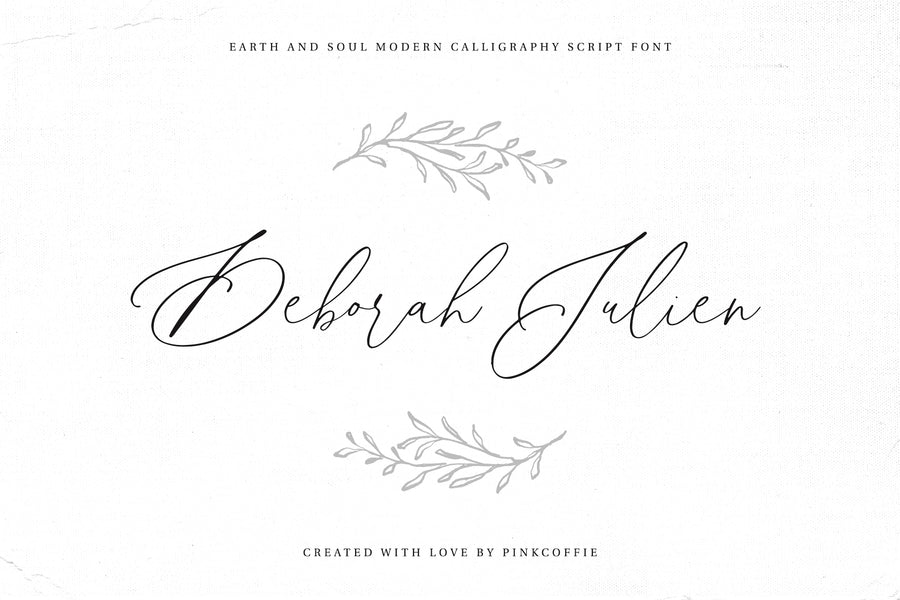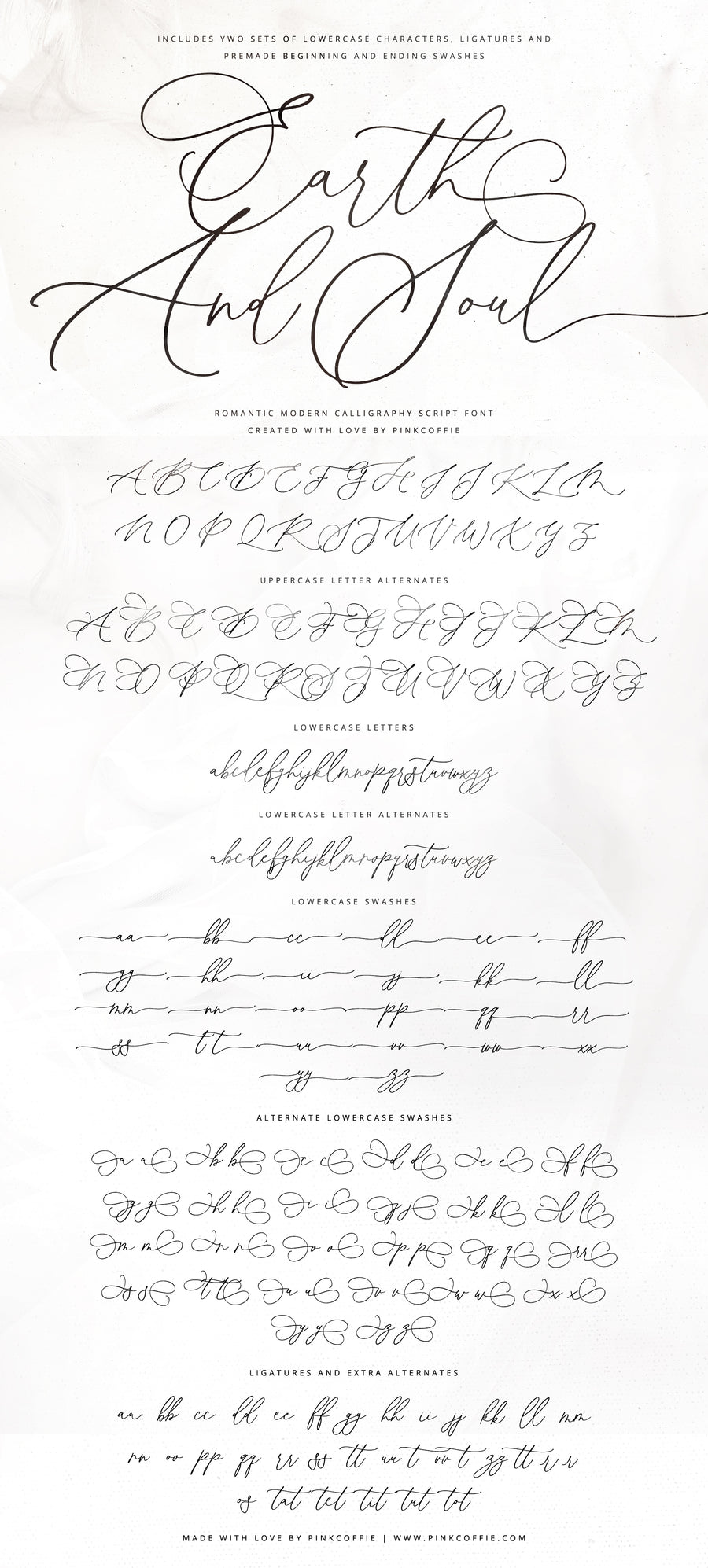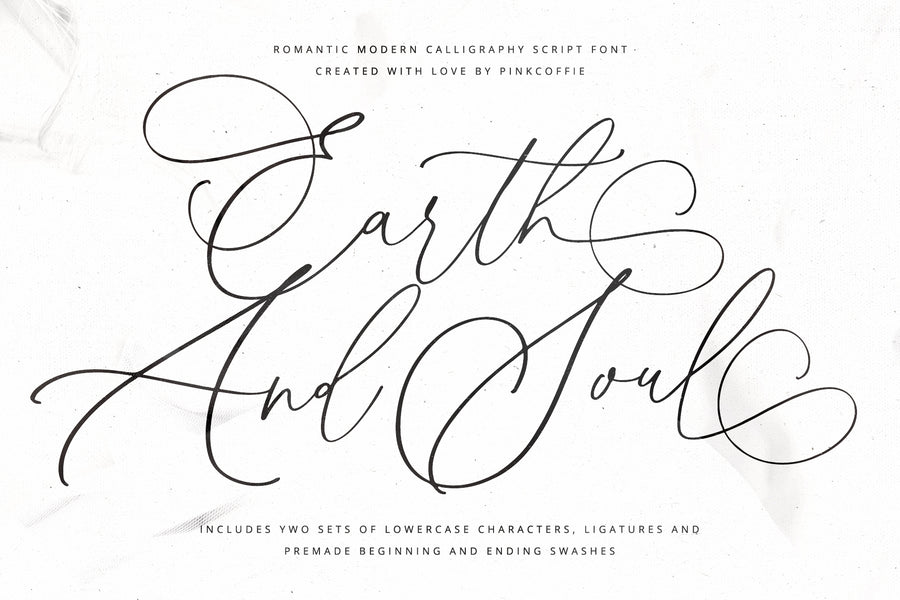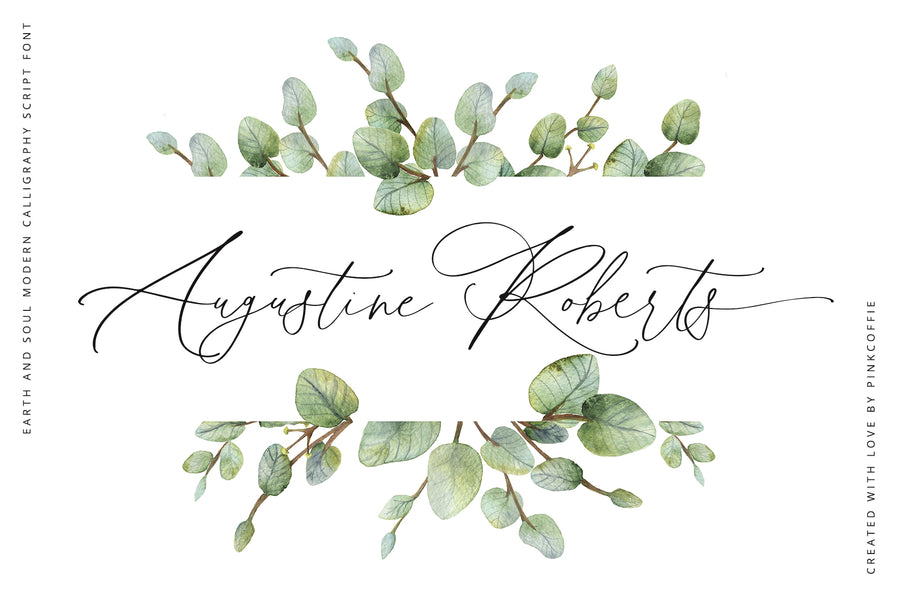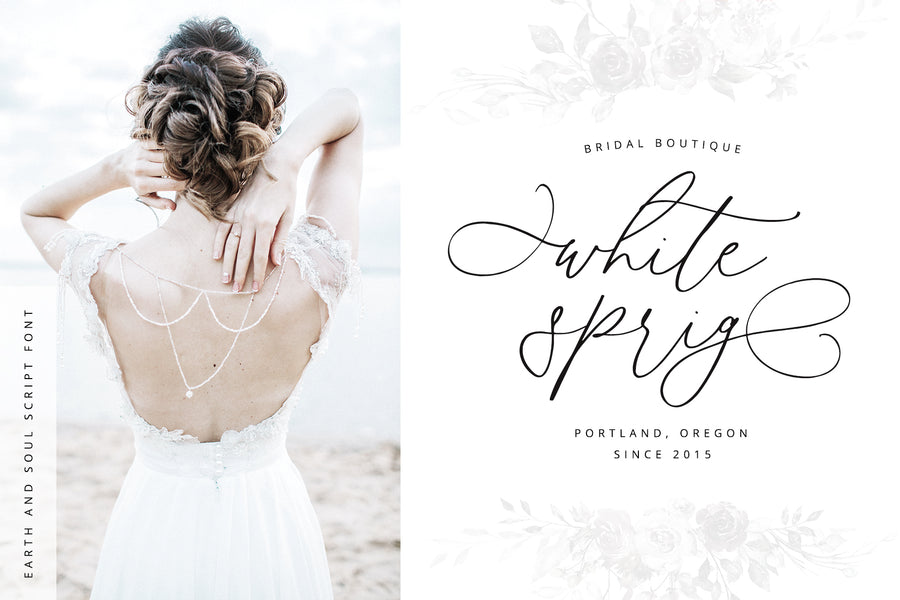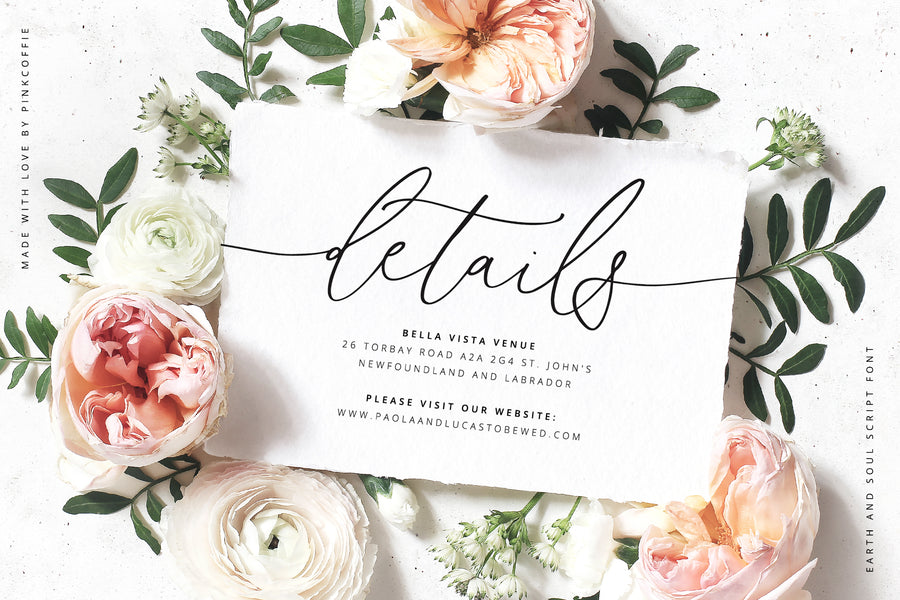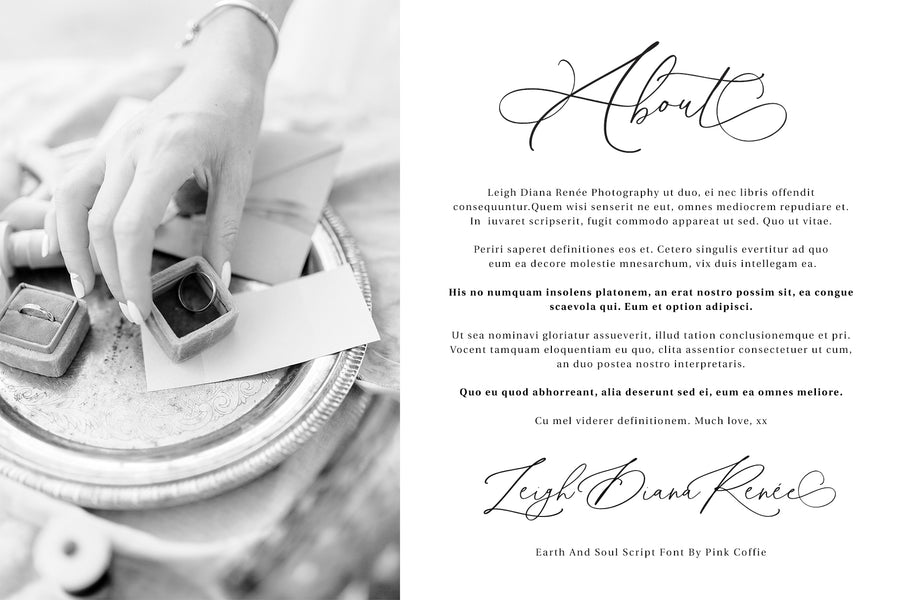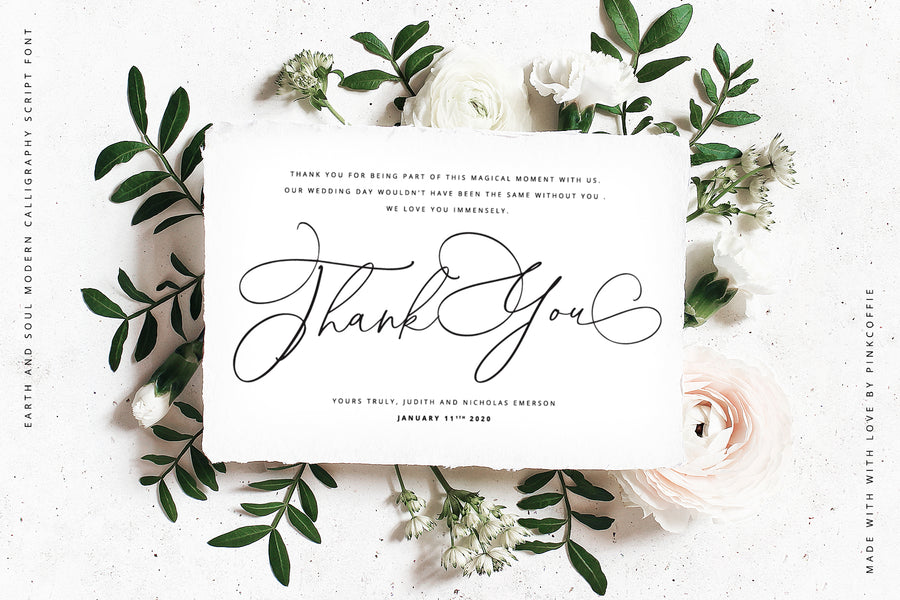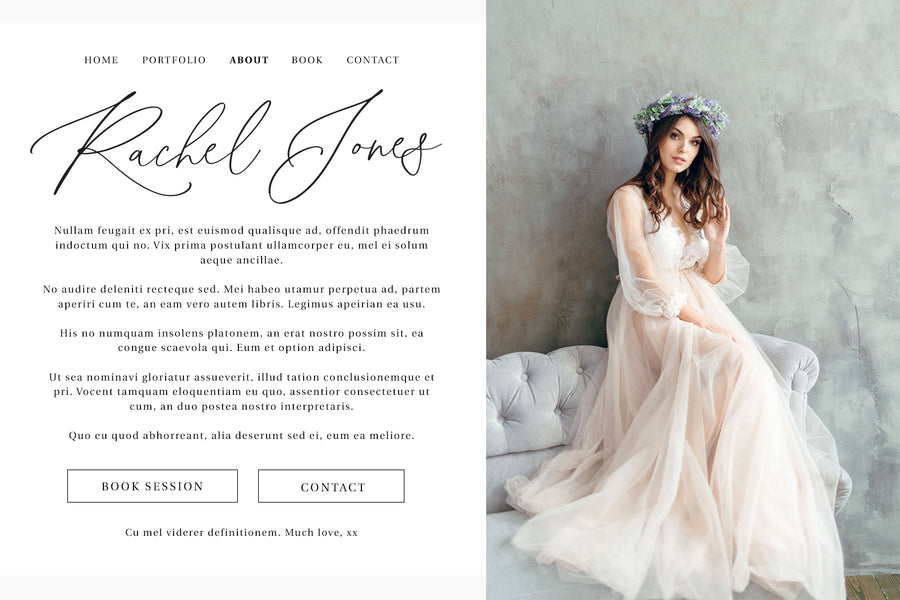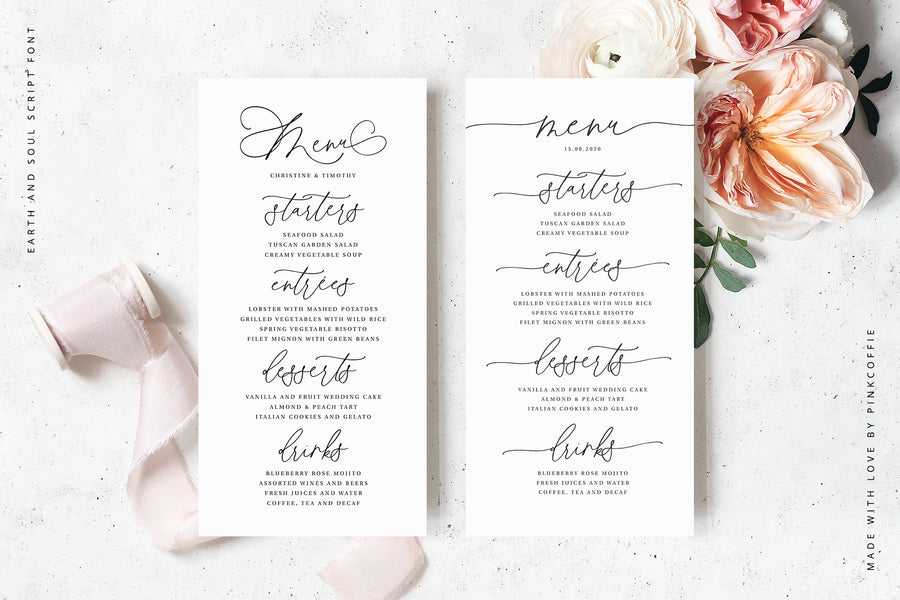
Earth And Soul | Elegant Script Font
Say hello to Earth And Soul an elegant modern calligraphy script font inspired by delicate fine art photography, soulful love, and beautiful love poetry. ❤
Earth And Soul comes in two styles, a casual, yet elegant script version with minimal flourishes and simple, long beginning and ending swashes, and a more feminine, flourished version with swirly beginning and ending lowercase swashes, perfect for wedding stationery, feminine branding, logos, prints, and packaging.
❤ MULTILINGUAL SUPPORT:
As all my fonts, Earth And Soul includes multilingual support and the following multi-lingual characters: ÀÁÂÃÄÅĂĄÆĆČÇĎĐÈÉÊĚËĘÌÍÎÏĹĽŁŃŇÑÒÓÔÕÖŐØŔŘŚŠŞŢŤÙÚÛÜŰŮÝŸŹŻŽ ãàáâäåăąæßćčçďđèéêěëęìíîïľłńňñòóôõöőøŕřśšşţťùúûüűůýÿźżž